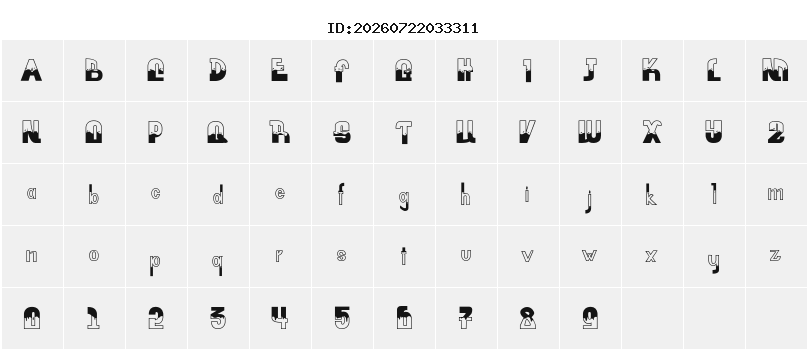
• Font Name: FLOOD WATER NORMAL
• Designer: Nio
About FLOOD WATER NORMAL.otf
FLOOD WATER NORMAL.otf is a modern, elegant sans-serif font designed for ultimate readability and visual harmony. Perfect for branding, headlines, web design, and print materials.